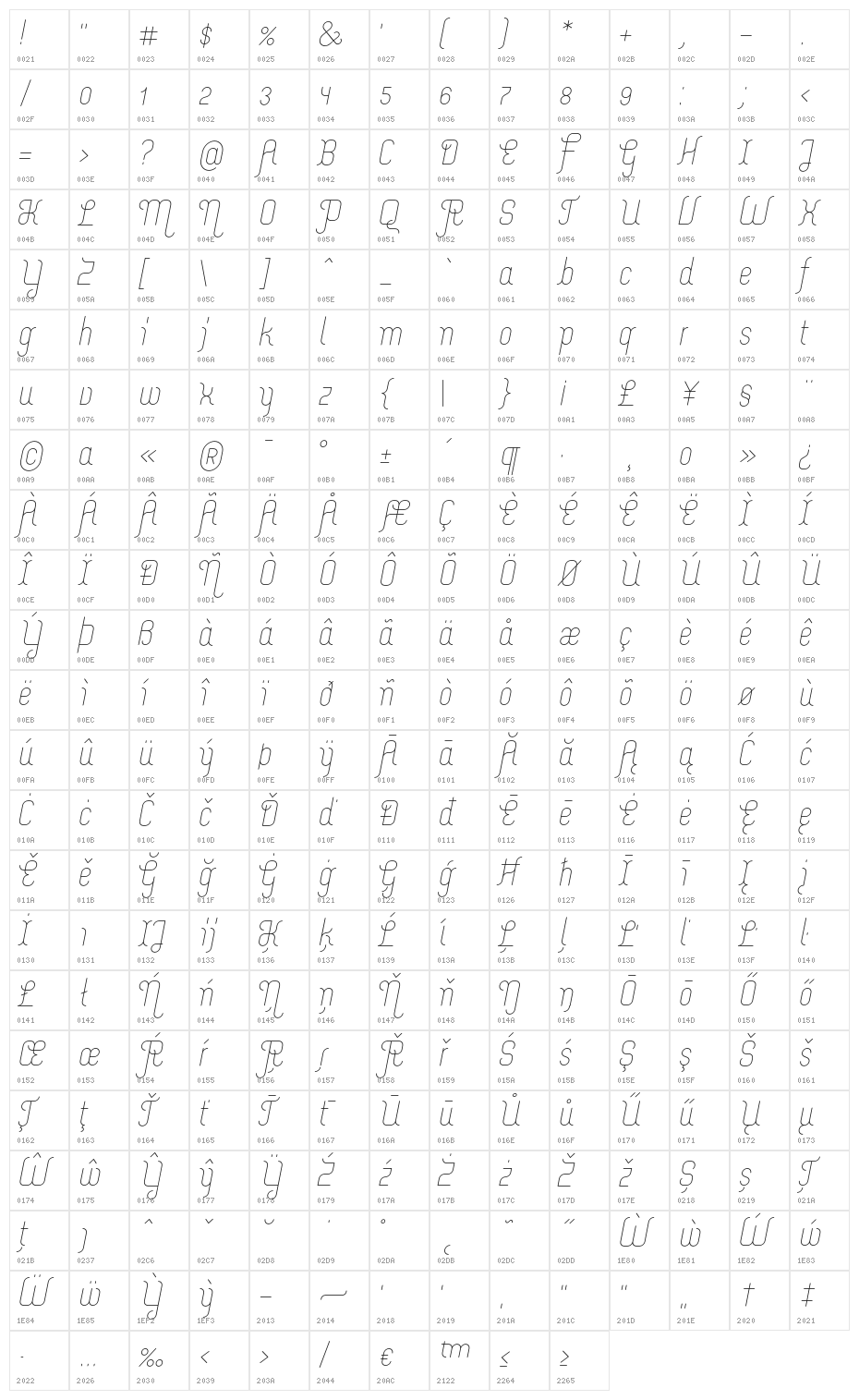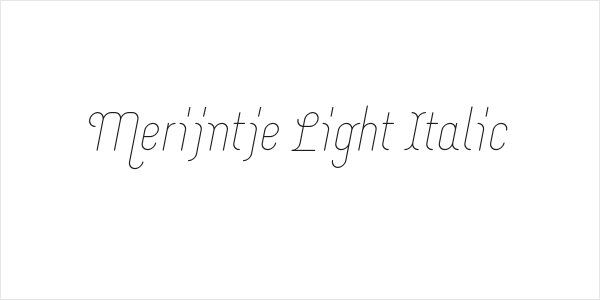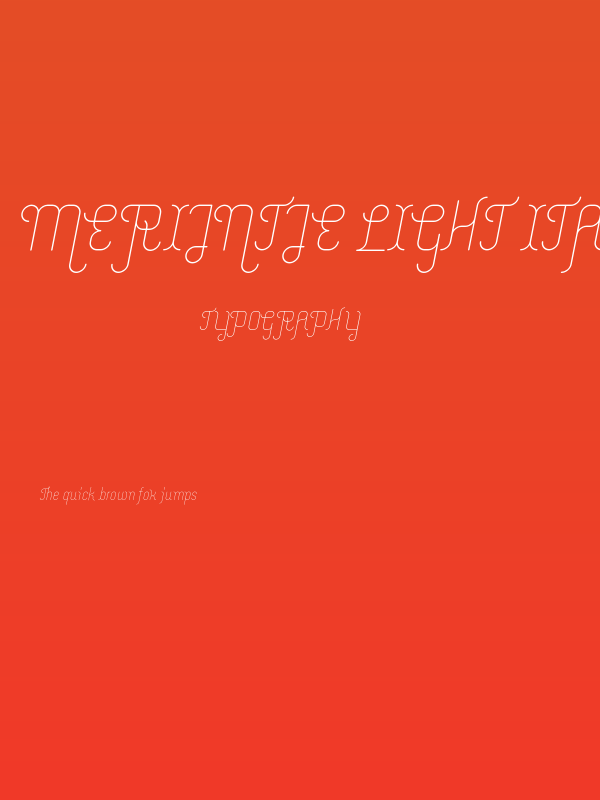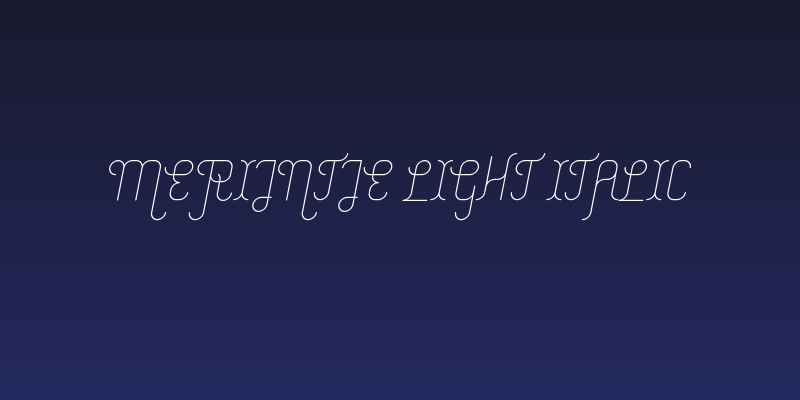
Merijntje Light Italic Font
Merijntje Light Italic Description
This font features a unique, flowing style with a light and airy appearance. The characters are elegantly elongated with a slight slant, giving it an italicized look. The strokes are thin and consistent, providing a delicate and refined aesthetic. The font maintains a modern and sophisticated feel, with a touch of playfulness due to its distinctive curves and loops. The spacing between characters is generous, enhancing readability while maintaining its artistic flair. This font is well-suited for creative projects that require a touch of elegance and modernity.
| Proposed Projects | Ideal for wedding invitations, fashion branding, elegant posters, and artistic logos. |